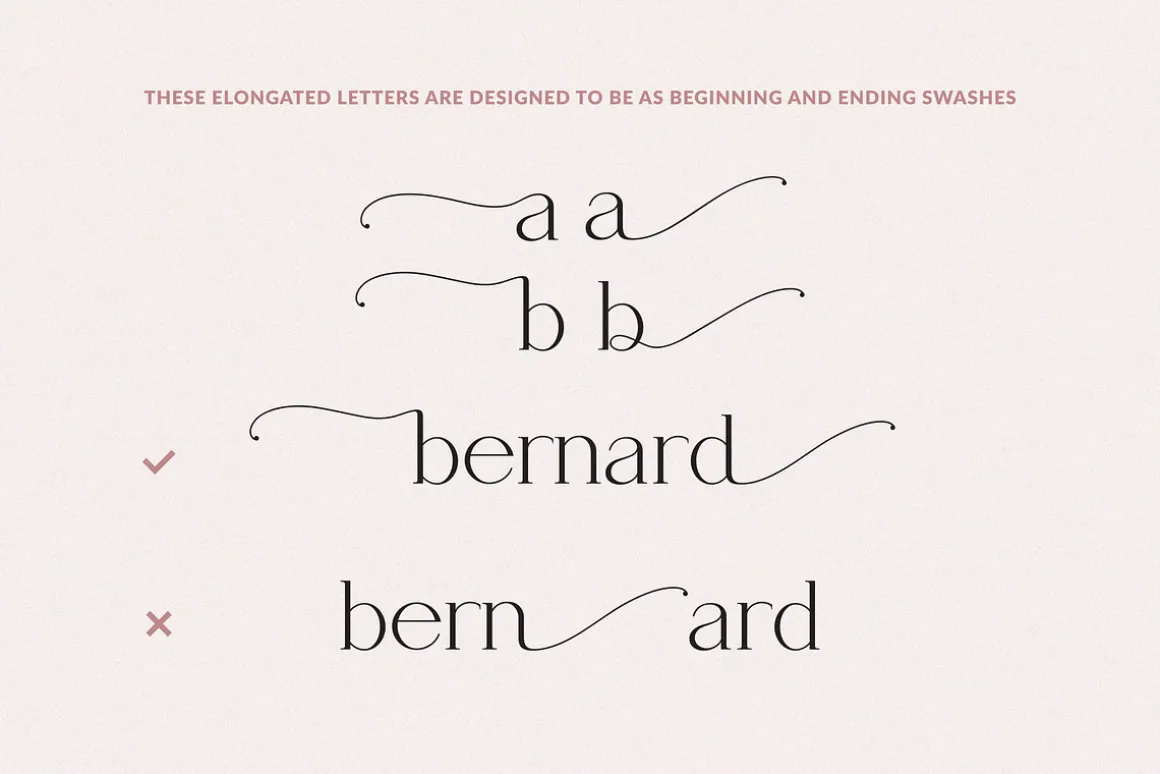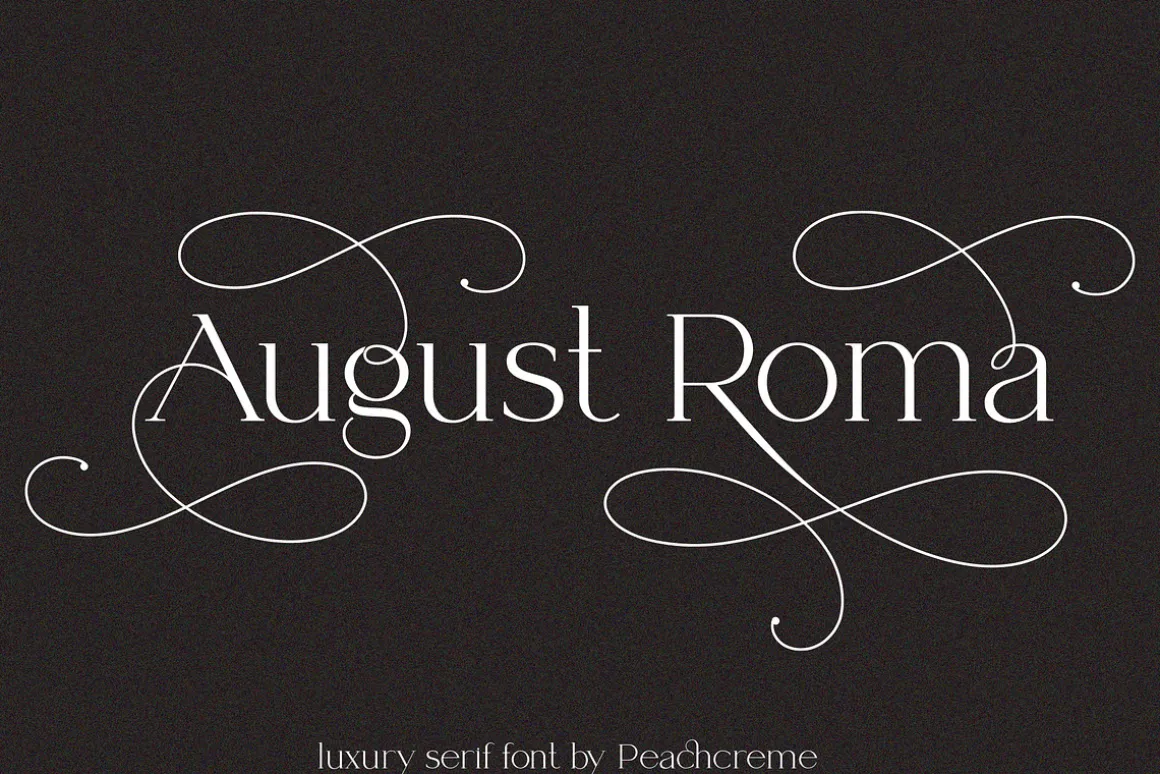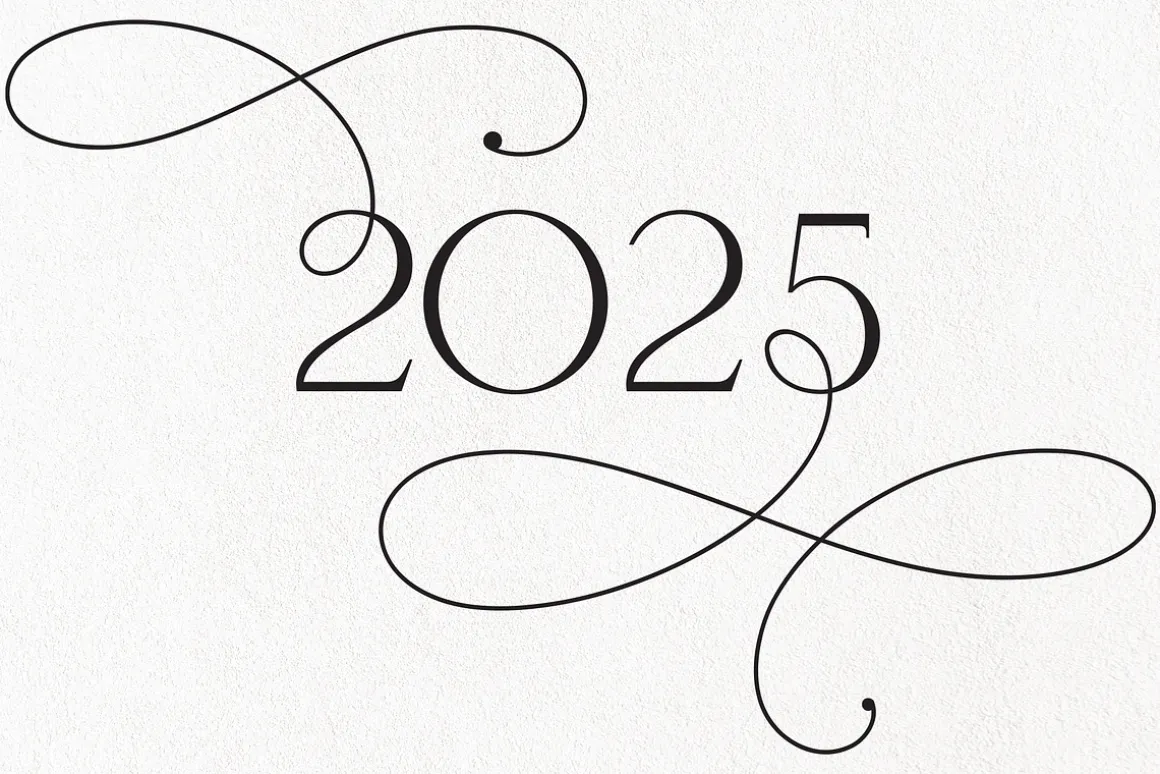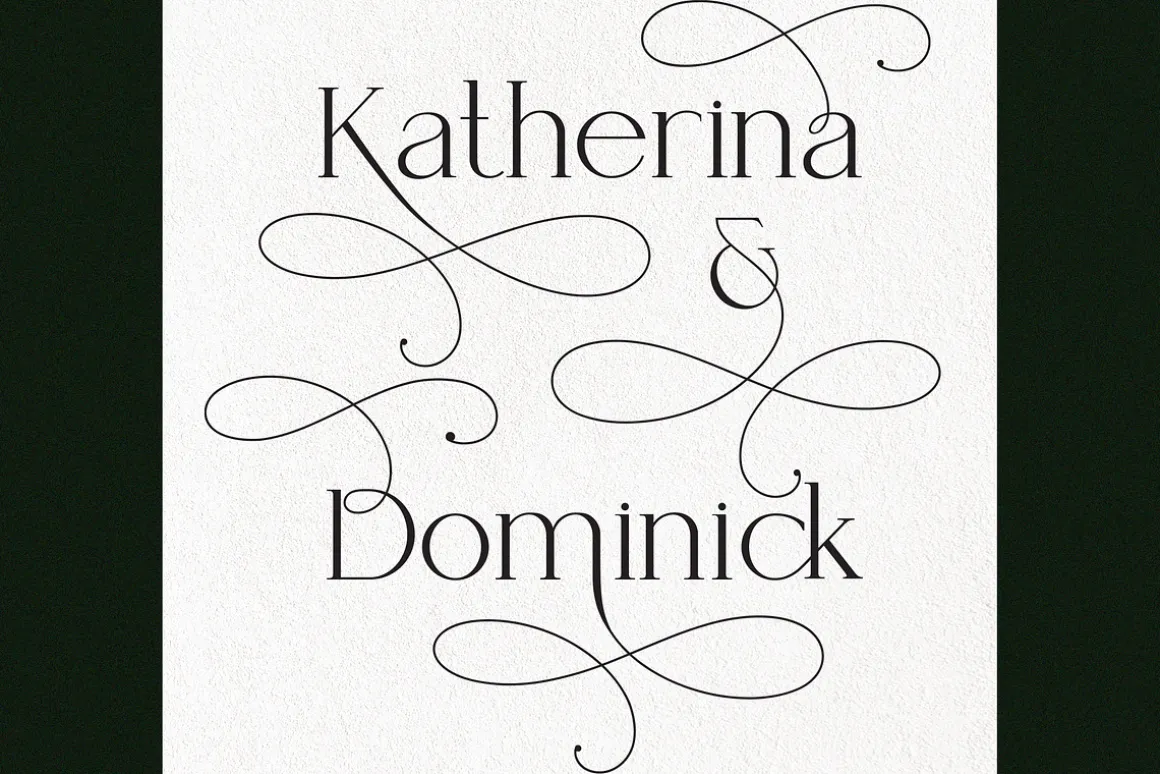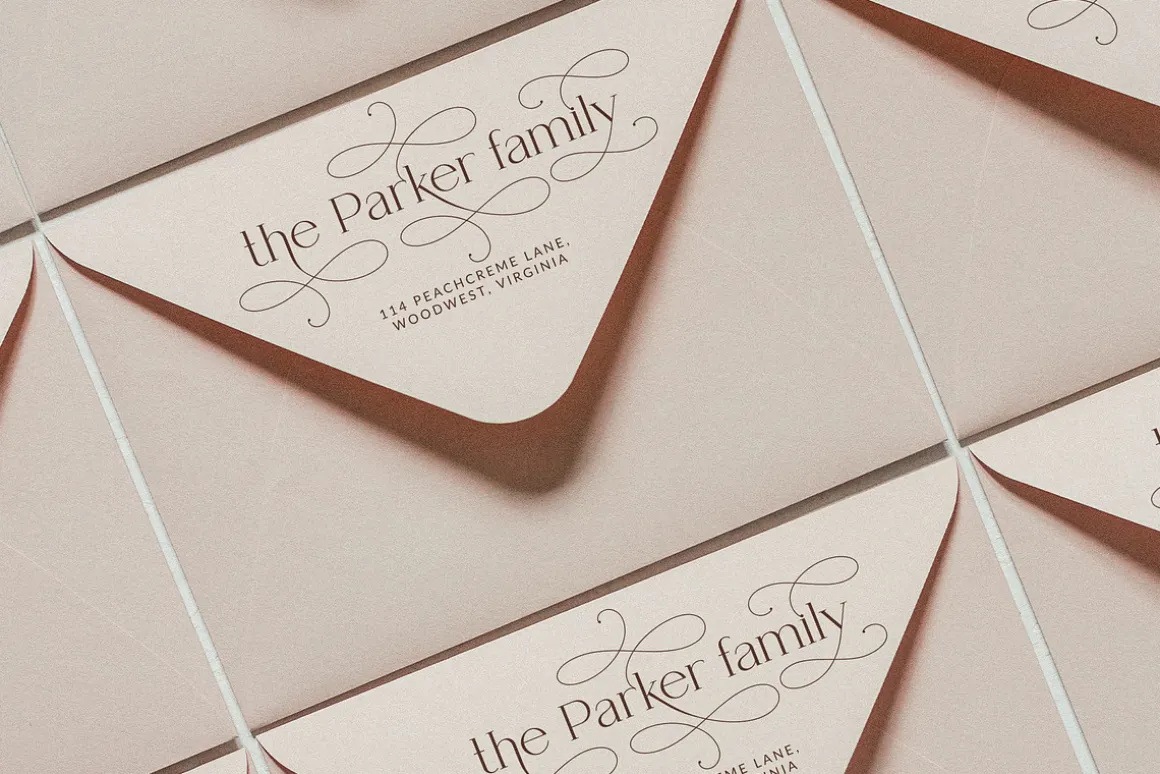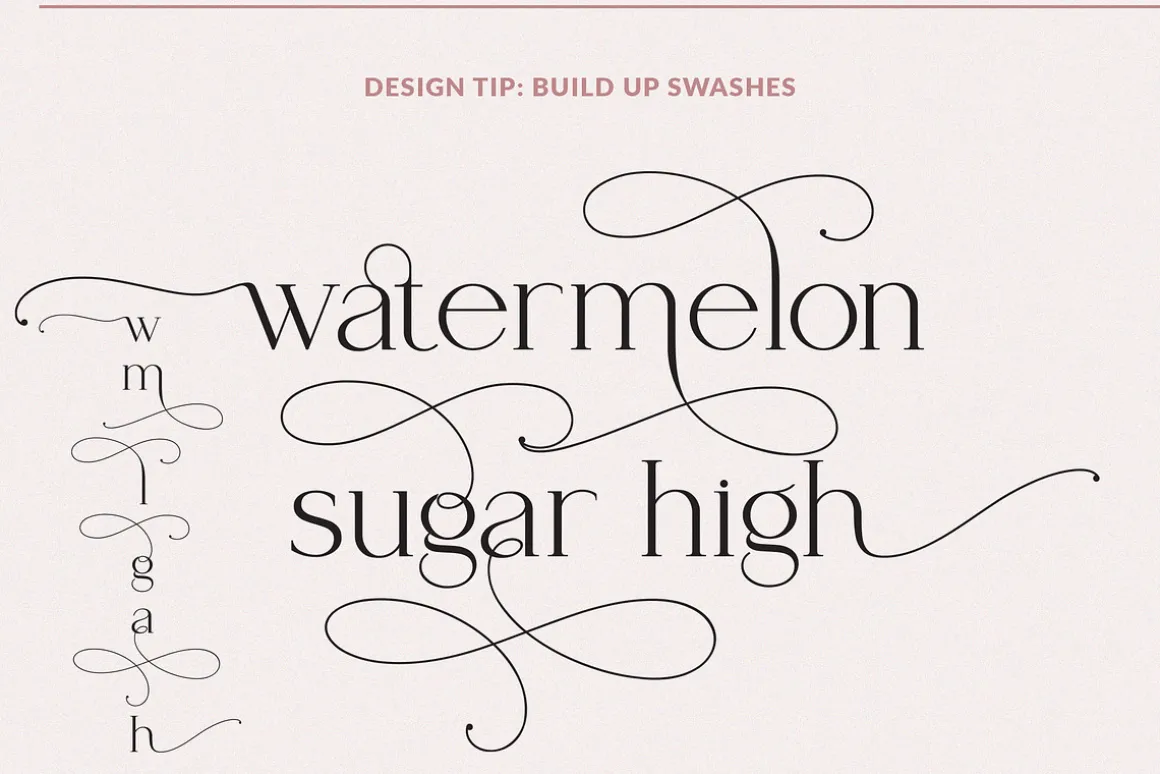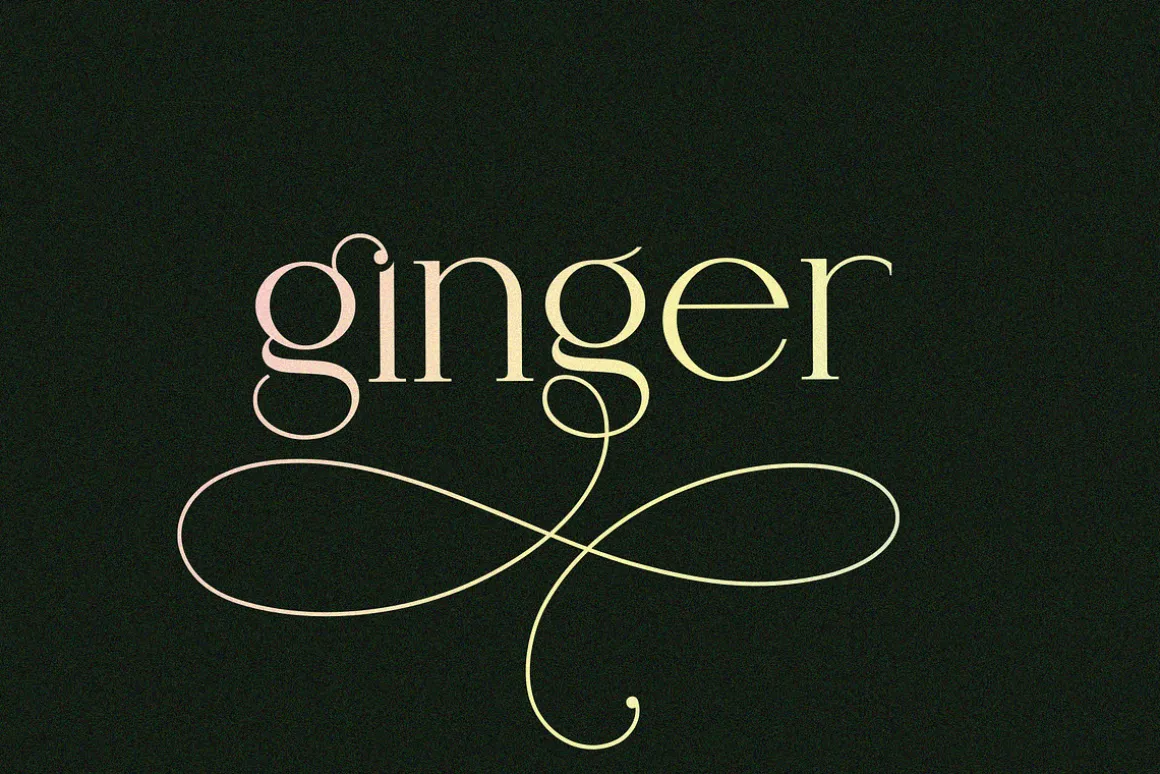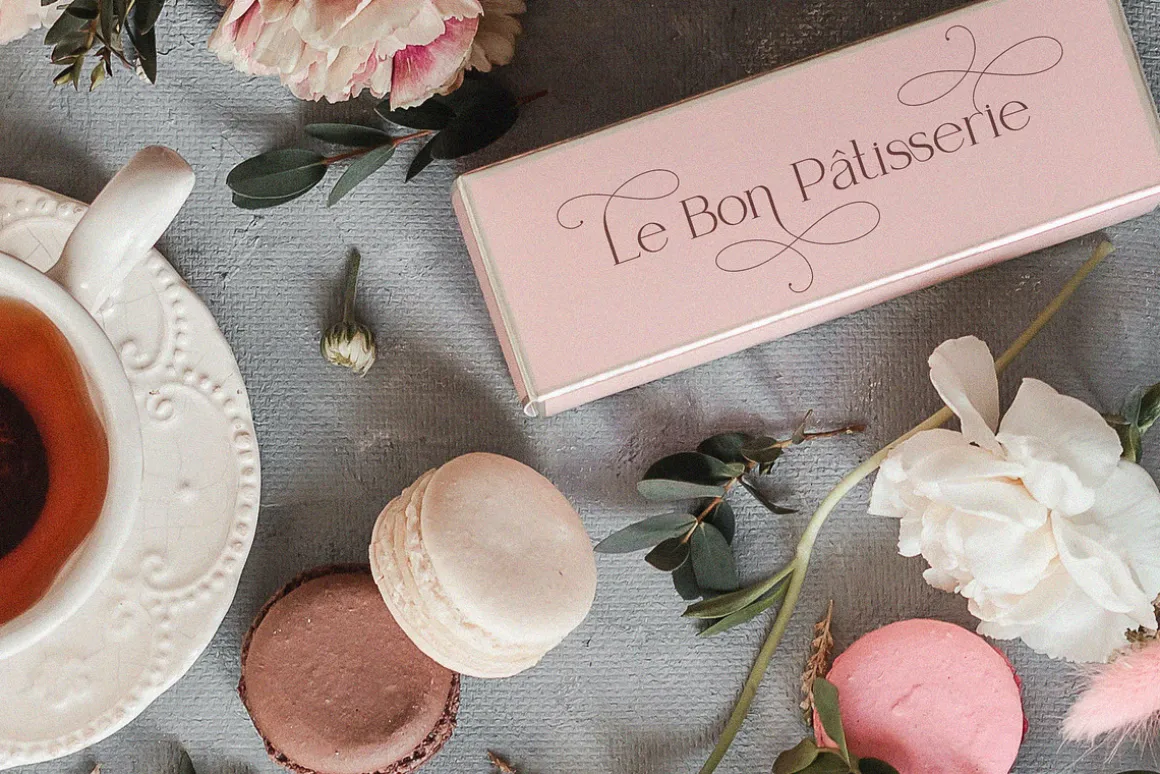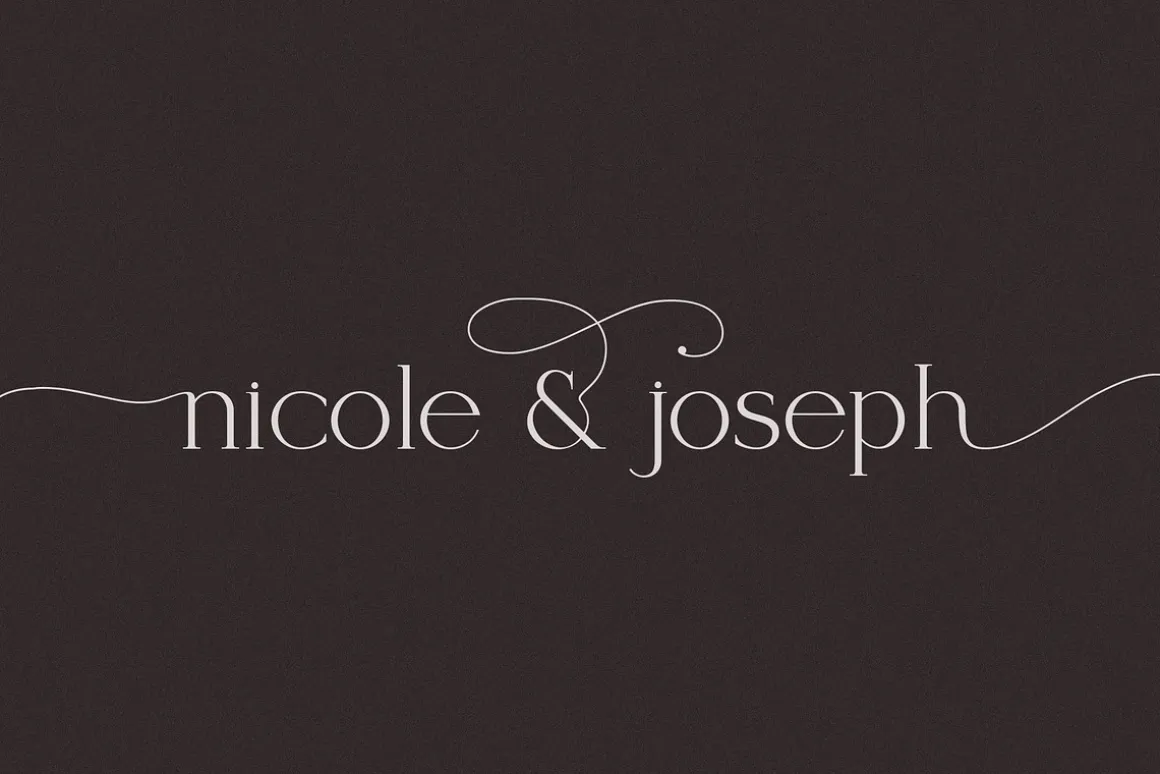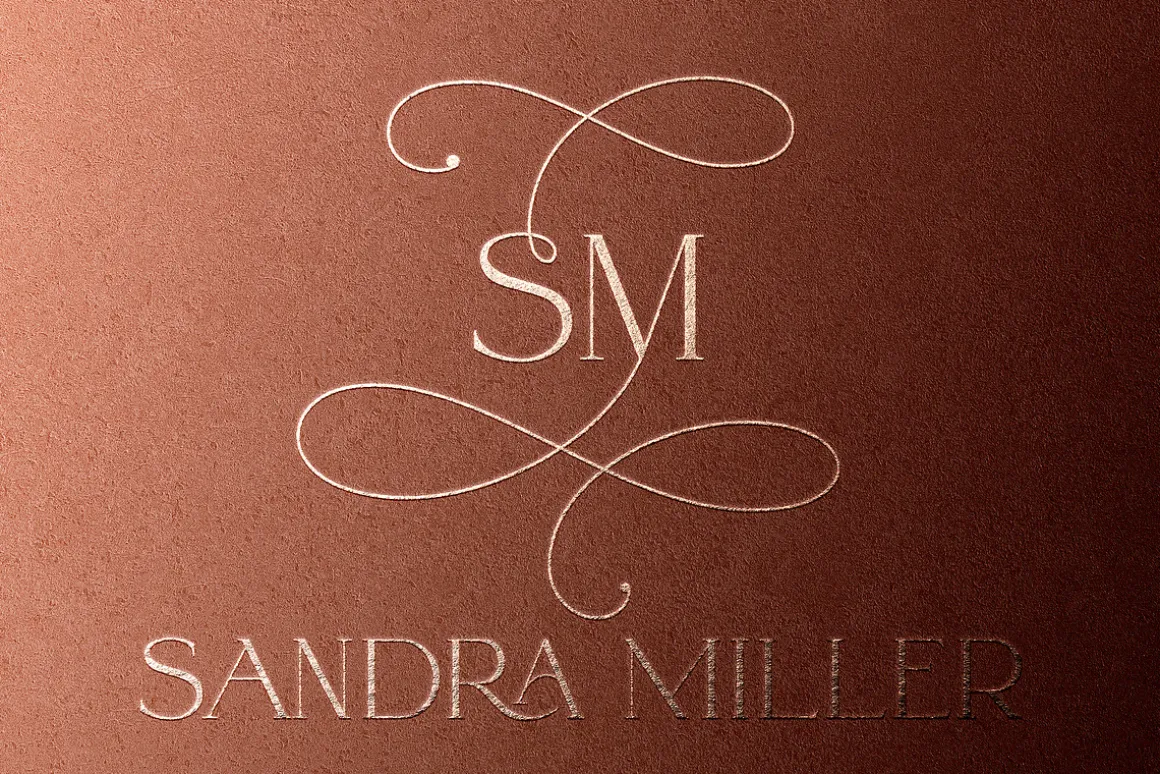
August Roma Serif – born to be your fav elegant font. Create stunning branding, sleek wedding invites, versatile holiday cards, and sweet book covers.
August Roma Serif has all uppercase, lowercase, ampersand, numeral swashes.